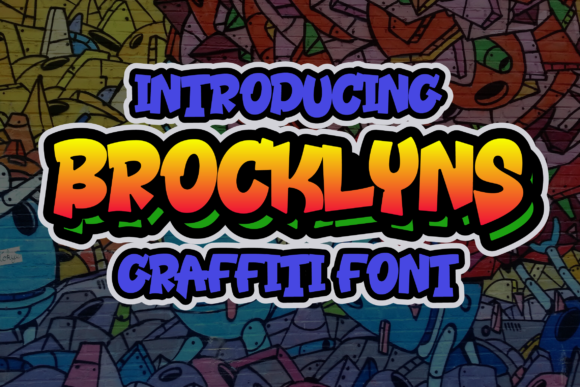
The Urban Edge of Typography: Discovering Brocklyns Font
I’ll never forget the design project that led me to Brocklyns Font. I was working on a branding campaign for a trendy sportswear label, and I was struggling to find the perfect font to capture the urban, edgy vibe of the brand. The client wanted something that would stand out on t-shirts, logos, and advertisements, but still convey a sense of casual cool. That’s when I stumbled upon Brocklyns Font, a graffiti-style display font that instantly resonated with the brand’s aesthetic.
- ✅ Unique Urban Style: Brocklyns Font brings a fresh, graffiti-inspired look that’s perfect for designs that need an edgy touch.
- ✅ Versatile: This font is incredibly versatile, suitable for a wide range of projects from t-shirts and sportswear to logos and advertisements.
- ✅ Easily Readable: Despite its stylized appearance, Brocklyns Font remains surprisingly readable, even at smaller sizes.
- ⚠️ Limited Formality: Brocklyns Font is best suited for casual, urban designs. It may not be the best fit for more formal or traditional projects.
- ⚠️ Glyph Variety: While the font has a great selection of characters, it might lack some advanced OpenType features that more complex fonts offer.
The Designer Inspiration Behind Brocklyns Font
Brocklyns Font was inspired by the vibrant street art scene of Brooklyn, New York. The designer, aiming to capture the raw energy and rebellious spirit of urban graffiti, crafted a font that embodies the creativity and diversity of city life. Each letterform is a nod to the eclectic mix of cultures and art forms that thrive in urban environments.
Q: What type of projects is Brocklyns Font best suited for?
A: Brocklyns Font is ideal for urban and casual designs, including t-shirts, sportswear, logos, advertisements, and clothing.
Q: Is Brocklyns Font difficult to read?
A: Despite its stylized appearance, Brocklyns Font is surprisingly readable, making it versatile for various design applications.